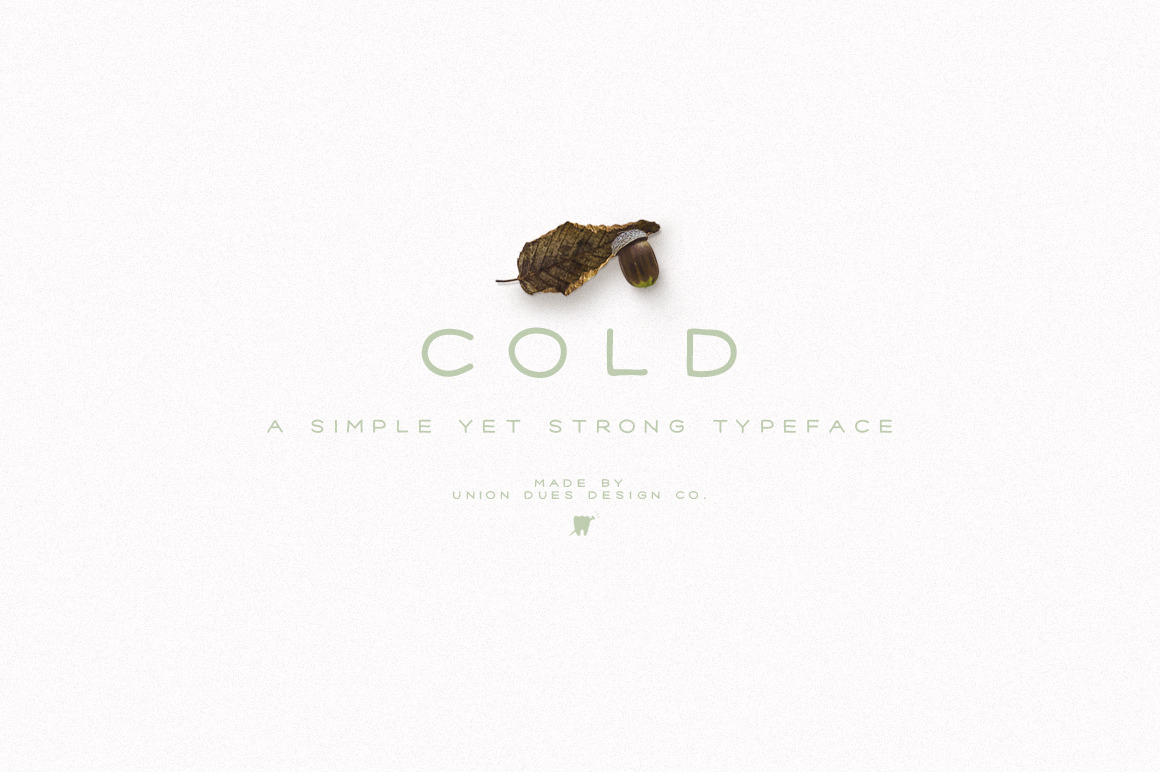
Cold Font
Introducing our newest product - Cold Font. This typeface is a perfect addition to anyones font arsenal! It pairs well with hand-drawn graphics or can stand out on its own!